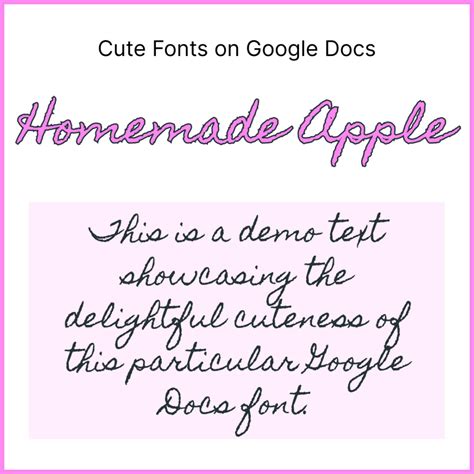
Cutest Fonts On Google Docs. Web if you’re looking for an elegant font to use on your google docs, then lora is a great option. Web nice fonts on google docs are:
Web if you’re looking for an elegant font to use on your google docs, then lora is a great option. Libre baskerville lato oswald raleway old standard tt Web nice fonts on google docs are: Josefin sans is one of the most versatile sans serif fonts in google docs, featuring a simple yet. We've selected the best fonts to make your google doc documents look the best they can. Web 15 best aesthetic fonts on google docs 1. Josefin sans josefin sans is a modern sans serif typeface with a geometric design. Web google has a wide library of fonts that can turn your document into a pleasure to read and write. Web cute fonts on google docs 1. Indulge in your love of calligraphy.
Josefin sans is one of the most versatile sans serif fonts in google docs, featuring a simple yet. Josefin sans is one of the most versatile sans serif fonts in google docs, featuring a simple yet. Web nice fonts on google docs are: We've selected the best fonts to make your google doc documents look the best they can. Josefin sans josefin sans is a modern sans serif typeface with a geometric design. Indulge in your love of calligraphy. Libre baskerville lato oswald raleway old standard tt Web if you’re looking for an elegant font to use on your google docs, then lora is a great option. Web google has a wide library of fonts that can turn your document into a pleasure to read and write. Web 15 best aesthetic fonts on google docs 1. Web cute fonts on google docs 1.